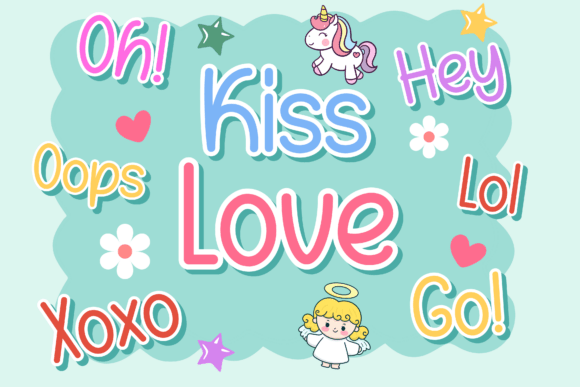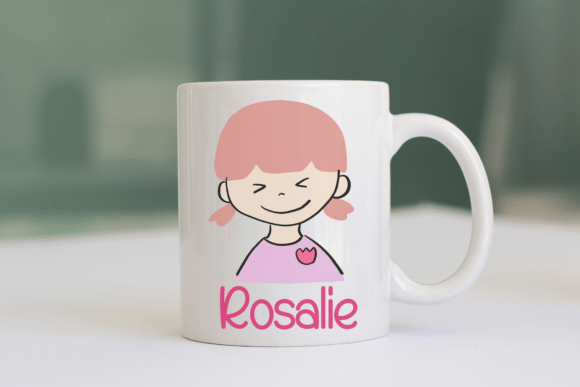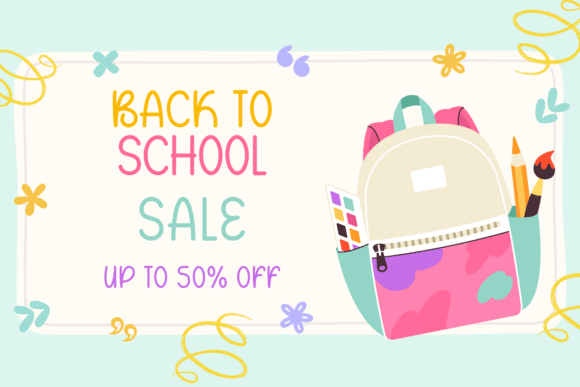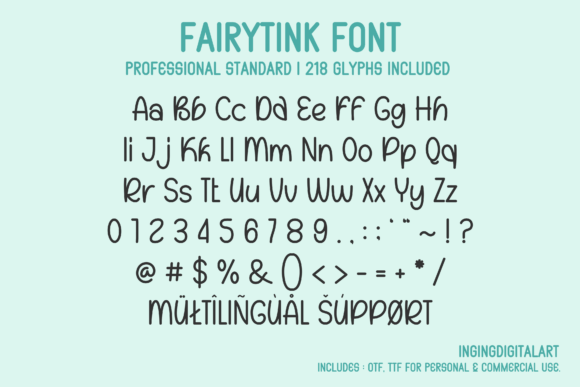
FairyTink Font: Add a Touch of Whimsy to Your Designs
In the world of typography, fonts play a crucial role in conveying the tone and personality of a design. If you’re looking for a font that exudes playfulness, charm, and a dash of magic, look no further than FairyTink. This delightful, handwritten font is perfect for designers and crafters seeking to add a touch of whimsy to their projects.
The Charm of FairyTink
FairyTink is a playful, handwritten font that is sure to captivate your audience with its soft curves and quirky character shapes. Its unique design makes it an excellent choice for projects that require a dash of sweetness and personality. Whether you’re working on a logo, poster, banner, product packaging, children’s content, apparel, or stickers, FairyTink is the perfect companion to bring your creative ideas to life.
One of the standout features of FairyTink is its versatility. This font can be used across a wide range of projects, including:
- Logos: Create a memorable brand identity with a logo that showcases your personality and style.
- Posters and Banners: Grab attention with eye-catching headings and titles that are sure to leave a lasting impression.
- Product Packaging: Add a touch of whimsy to your product packaging and make it stand out on store shelves.
- Children’s Content: Create engaging and interactive content for kids with a font that’s both fun and playful.
- Apparel: Design unique and stylish apparel that showcases your personality and style.
- Stickers: Create custom stickers that are perfect for decorating laptops, water bottles, or any other surface.
Why Choose FairyTink?
So, what sets FairyTink apart from other fonts? Here are just a few reasons why designers and crafters love this delightful font:
- Unique Character Shapes: FairyTink’s quirky character shapes add a touch of personality to any design.
- Soft Curves: The font’s soft curves create a sense of warmth and approachability.
- Playful Vibe: FairyTink’s playful vibe is perfect for projects that require a dash of whimsy and fun.
- Easy to Read: Despite its playful nature, FairyTink is easy to read and understand, making it perfect for body text and headings.
Tips for Using FairyTink
To get the most out of FairyTink, here are a few tips to keep in mind:
- Mix and Match: Combine FairyTink with other fonts to create a unique and visually appealing design.
- Experiment with Colors: Play around with different colors to find the perfect combination that brings your design to life.
- Don’t be Afraid to Get Creative: FairyTink is a versatile font that can be used in a variety of creative ways, so don’t be afraid to think outside the box.
In conclusion, FairyTink is a delightful, handwritten font that adds a touch of whimsy and charm to any design. Its unique character shapes, soft curves, and playful vibe make it perfect for projects that require a dash of sweetness and personality. Whether you’re a designer or crafter, FairyTink is sure to become a favorite font in your collection. So why not give it a try and see the magic it can bring to your creative ideas?
Get Ready to Sprinkle a Little Magic on Your Designs!
With FairyTink, the possibilities are endless. So, get ready to sprinkle a little magic on your designs and bring your creative ideas to life. Whether you’re working on a personal project or a client’s brief, FairyTink is the perfect companion to help you create something truly special.